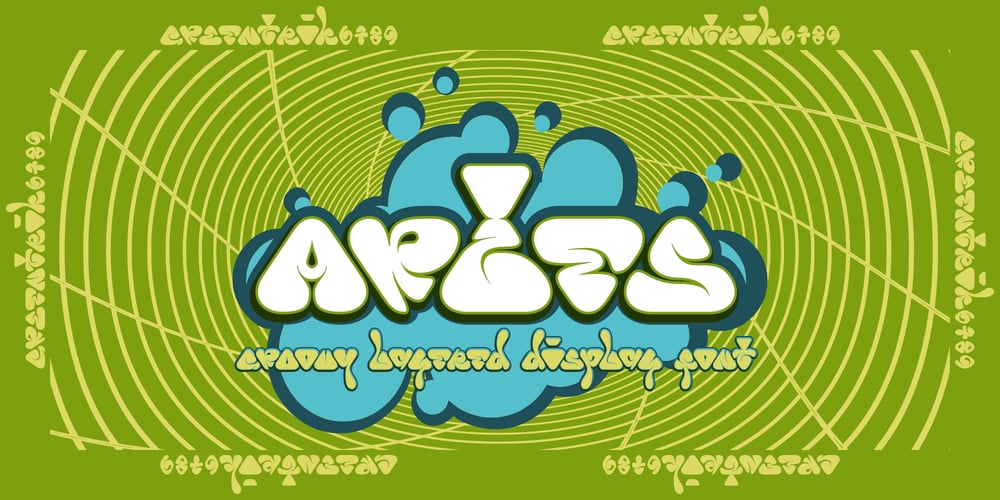
Artes Font Family was designed by Tri Kuncoro and published by Greentrik6789. Artes contains 5 styles and family package options. Proudly present, Artes groovy layered display font.Inspired by bubble letters in graffiti art and retro style design, it produces a display font with a fun style that is perfect for the design needs of posters, flyers, covers, titles, logos, packaging, t-shirts, branding and various needs that require a unique display font.Activate the Contextual Alternates feature so that the shape of the character changes according to the shape of the character in front of it, and Activate the Stylistic Alternates feature to change the number characters into bubbles that you can use as additional elements in your design.